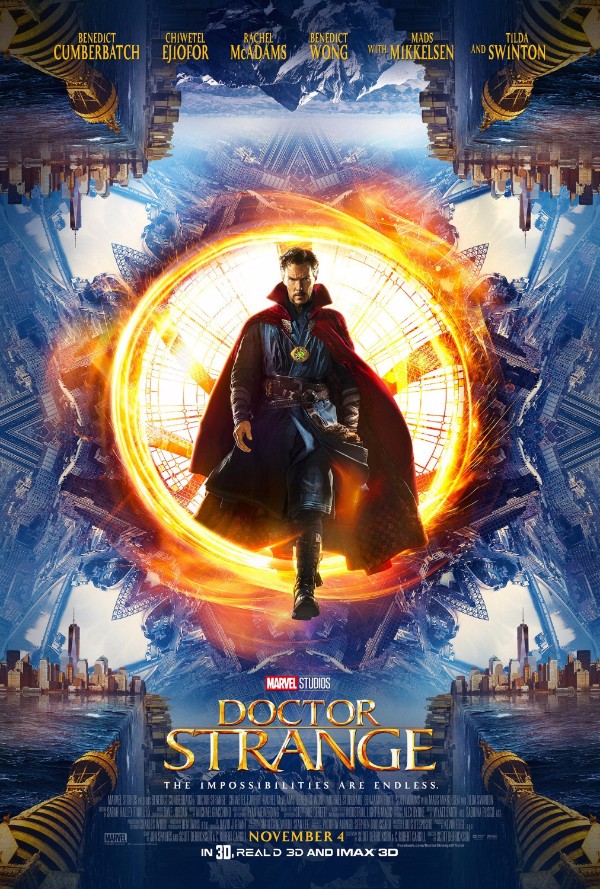
Doctor Strange Font
FantasyDoctor Strange is a 2016 Marvel superhero film about a talented but arrogant neurosurgeon who becomes a powerful sorcerer in order to defend the world against evil forces. Starring Benedict Cumberbatch as Doctor Strange.
The poster's movie title "Doctor Strange" is written in Baker Signet font, which was created by American calligrapher Arthur Baker in 1965. With its intricate broad strokes and slender triangular serifs, this calligraphic font is perfect for headlines and logos as a display typeface.